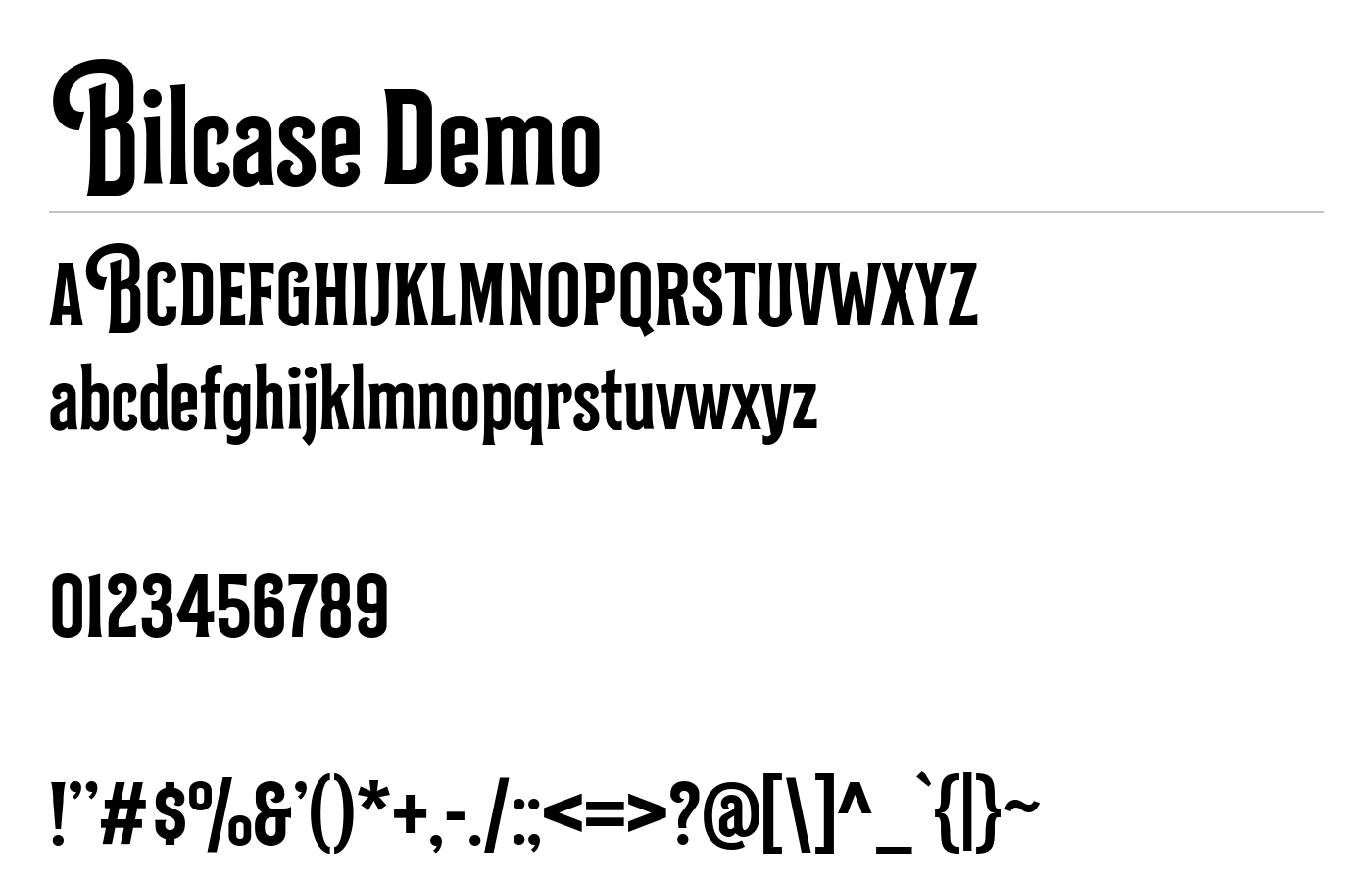
Bilcase Demo is a bold, condensed sans serif font with a vintage flair, featuring strong vertical lines and subtle rounded terminals that add character without sacrificing readability. Its high contrast and distinctive, stylized uppercase letters bring a unique, slightly retro personality, making it ideal for eye-catching headlines, branding, and packaging that aim to blend classic charm with modern boldness. This font works exceptionally well where a strong, confident statement is needed, especially in display settings.
Bilcase Demo Font
About Bilcase Demo Font